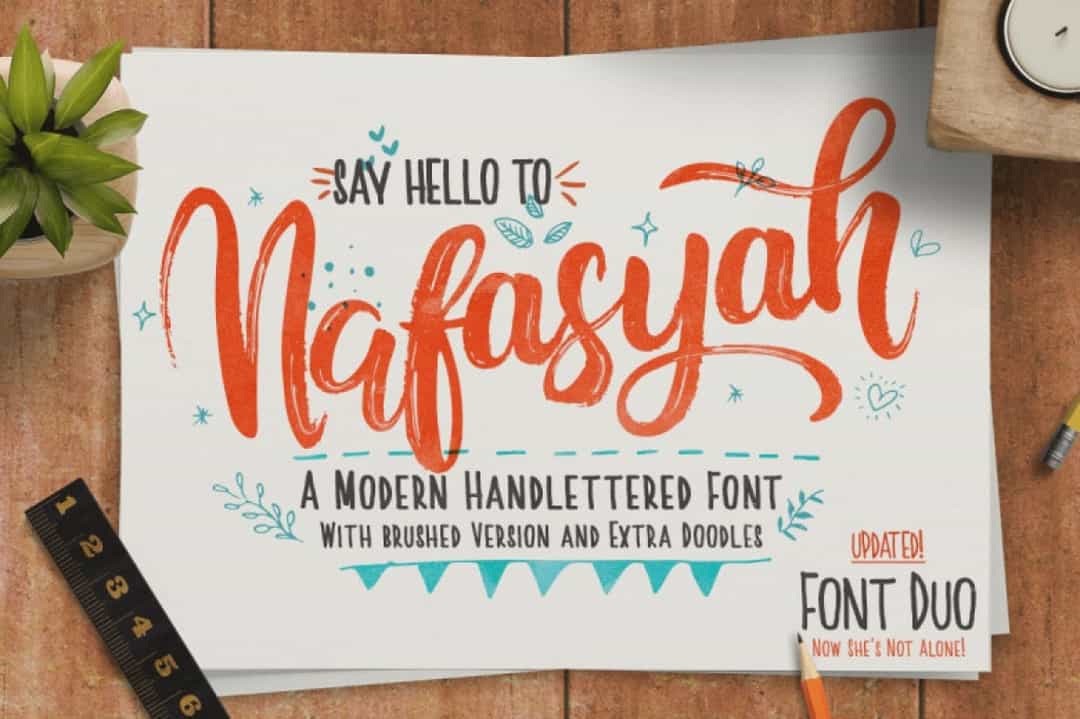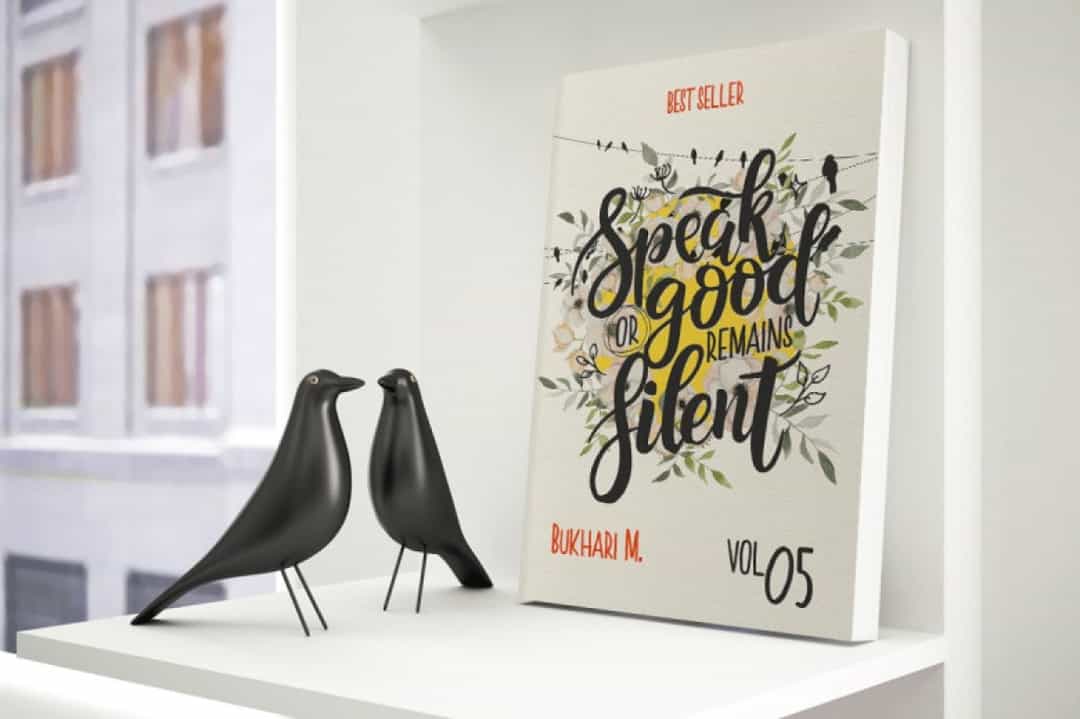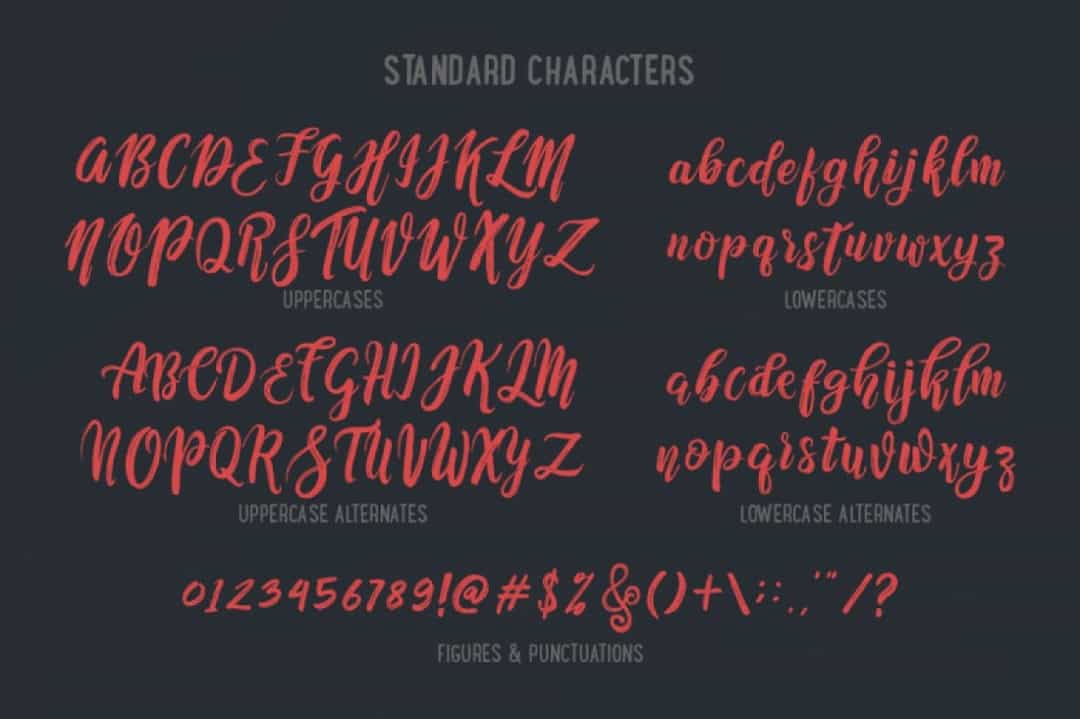
Discover Nafasyah Font, part of the Brush collection—a versatile and unique font perfect for adding a personal touch to your projects. Download it for free and enjoy crafting designs with style, from invitations to social media posts. This font is available exclusively for personal use, giving you the freedom to create without limits. Unlock your creativity with Nafasyah Font today!
afasyah is special handwritten font that means making words more personal and adding a unique feel to them or any piece of artwork. I’m a continuous script typeface with regular brush, sans, and special (swash + doodle) – Nafasyah has many motions with beautiful strokes for beautiful designs!